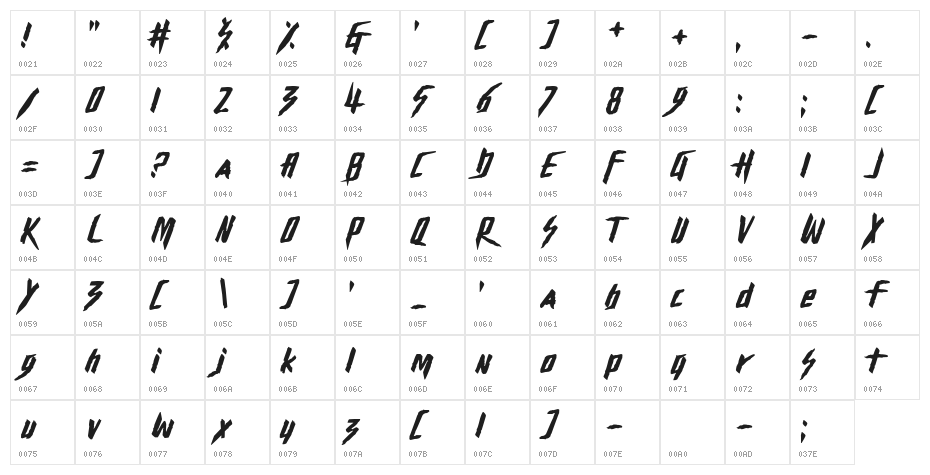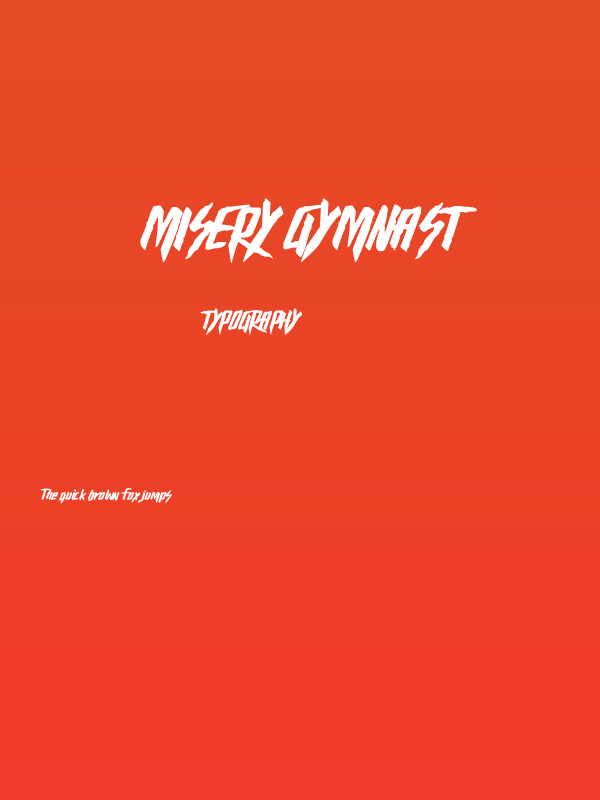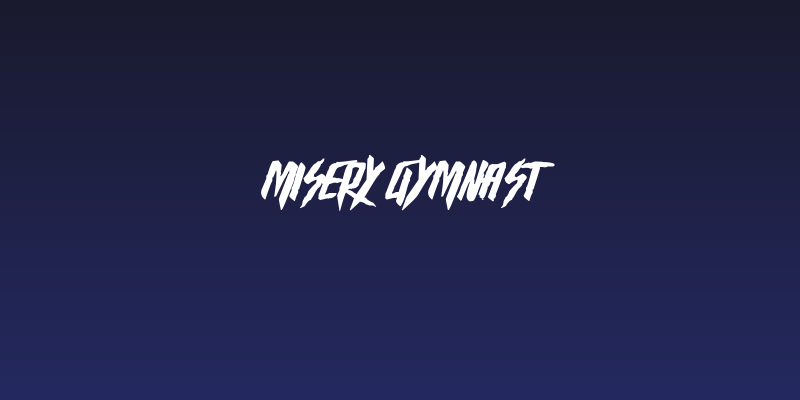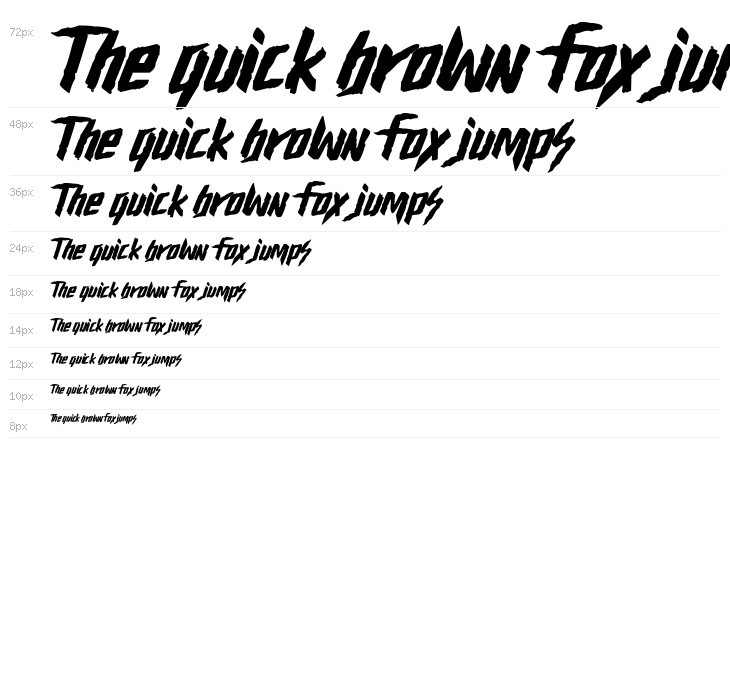
Misery Gymnast Font
Misery Gymnast Description
This font features a bold, aggressive style with sharp, angular lines and a dynamic, energetic appearance. The characters are heavily stylized, giving them a sense of movement and intensity. The uppercase and lowercase letters maintain a consistent design, with exaggerated strokes and a slightly chaotic feel. Numbers and special characters follow the same aesthetic, ensuring a cohesive look across all elements. The font's unique design makes it stand out, ideal for projects that require a strong visual impact.
| Overall Style | Modern, Energetic |
| Proposed Projects | Perfect for sports branding, action movie posters, video game titles, and edgy graphic design projects. |